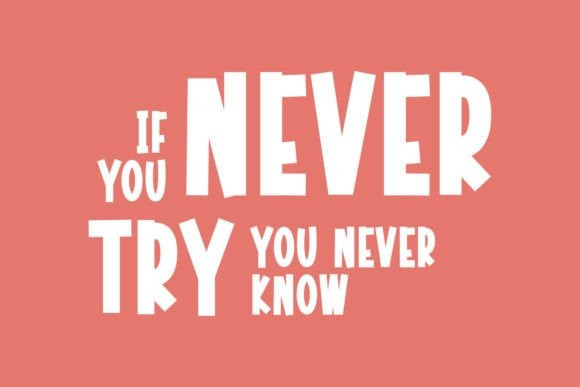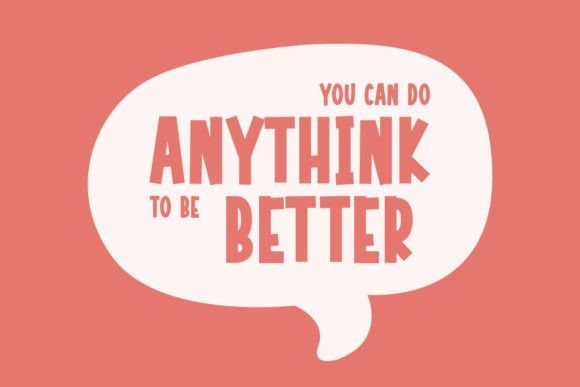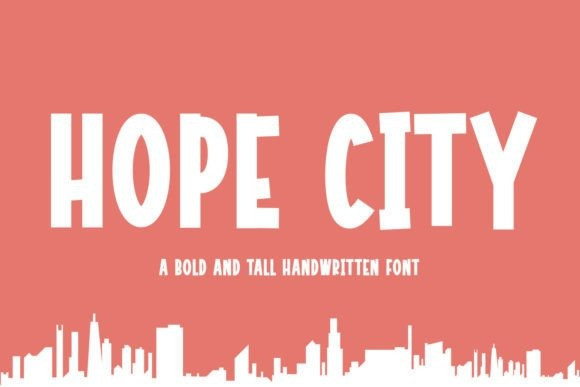
Hope City Font
Hope City Font is modern, tall, bold, childlike, and joyful. This font is suitable for logos, packaging designs, posters, business cards, covers, broadcasts, quotes, books, etc. Take your business go to the next level with HopeCity.